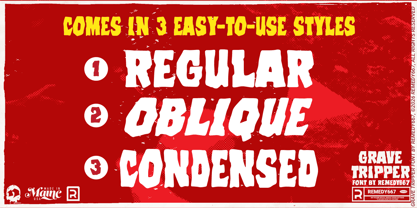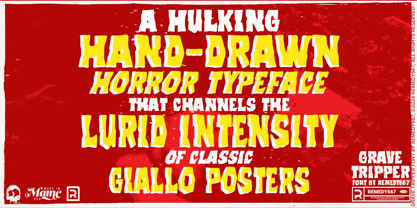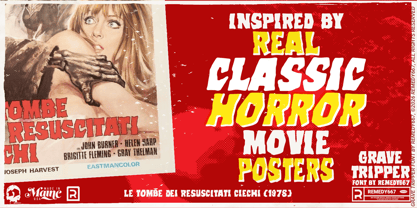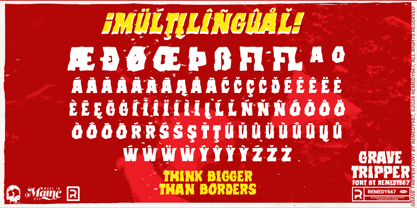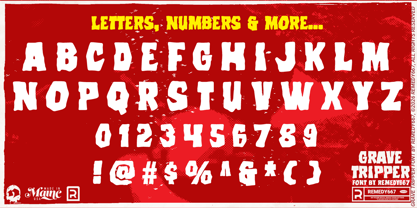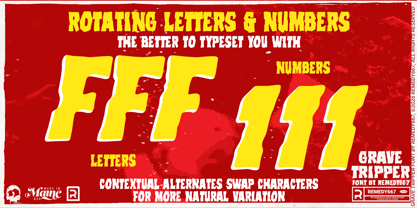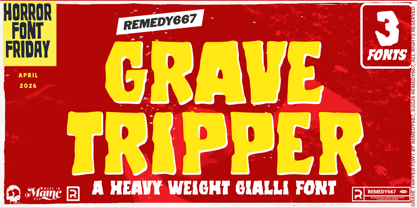
Grave Tripper 667
by Remedy667
The Grave Tripper 667 Font Family was designed by Nick Polifroni and published by Remedy667. Grave Tripper 667 contains 3 styles and family package options. More about this family
• Grave Tripper 667 Regular
• Grave Tripper 667 Condensed
• Grave Tripper 667 Oblique
Stumble too close to the tomb, and you might just take a Grave Tripper! Inspired by 1970s horror film posters for Tombs of the Blind Dead, Grave Tripper is a hulking, hand-drawn horror typeface that channels the lurid intensity of classic Giallo posters.
Built for designers who like their titles loud and lethal. Grave Tripper delivers thick, unapologetic forms that are perfect for layering, distressing, and pushing to the extremes. Whether you’re conjuring cult cinema chaos or modern horror mayhem, Grave Tripper is ready to take your designs beyond what you ever thought possible!
Features
• Heavy, bold hand-drawn lettering inspired by Giallo poster design
• Perfect for applying textures, effects, and dramatic styling
• Includes Regular and Oblique versions for versatility
• Multilingual support for taking your projects global
Designers: Nick Polifroni
Foundry: Remedy667